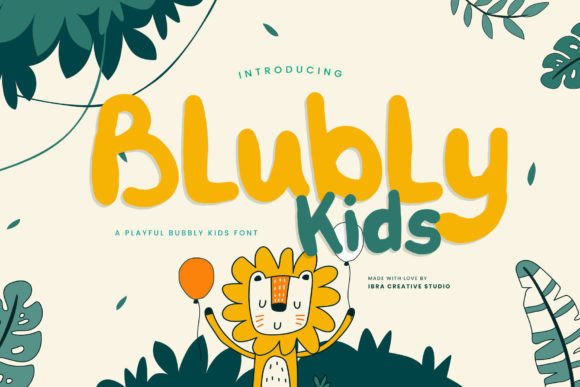
The Joy of Blubly Kids Font: A Designer’s Delight
I still remember the time I was working on a children’s book project, and I was struggling to find the perfect font to bring the story to life. The client wanted something playful, fun, and engaging, but I just couldn’t seem to find the right fit. That’s when I stumbled upon Blubly Kids Font, and it was love at first sight! ✨
Blubly Kids is a delightful and exuberant font that encapsulates the essence of childhood with its playful and bubbly design. Each letter dances with a buoyant energy, featuring rounded edges and whimsical details that evoke a sense of lighthearted joy. The font’s vibrant and cheerful demeanor makes it a perfect choice for children’s projects, adding a splash of fun to anything from storybooks to playful signage.
- ✨ Playful and fun design that’s perfect for kids’ projects
- ✅ Rounded edges and whimsical details that add a touch of personality
- 🎉 Excellent for use in storybooks, playful signage, and children’s branding
- 👍 Highly legible, even at smaller font sizes
While Blubly Kids Font is an amazing choice for kids’ projects, there are a few things to keep in mind: 🤔
- ⚠️ The font may not be suitable for more formal or professional projects, as it’s quite playful and attention-grabbing.
- ⚠️ Some of the letters may not be suitable for use in all-caps or title case, as they can look a bit awkward.
The Story Behind Blubly Kids Font
Blubly Kids Font was designed with one goal in mind: to bring a smile to kids’ faces. The designer, a passionate lover of all things whimsical and fun, wanted to create a font that would capture the essence of childhood. With its playful and bubbly design, Blubly Kids Font is the perfect result.
| Font Name | Blubly Kids Font |
| Author | ibracreative |
Q: What is Blubly Kids Font?
A: Blubly Kids Font is a playful and fun font designed specifically for kids’ projects.